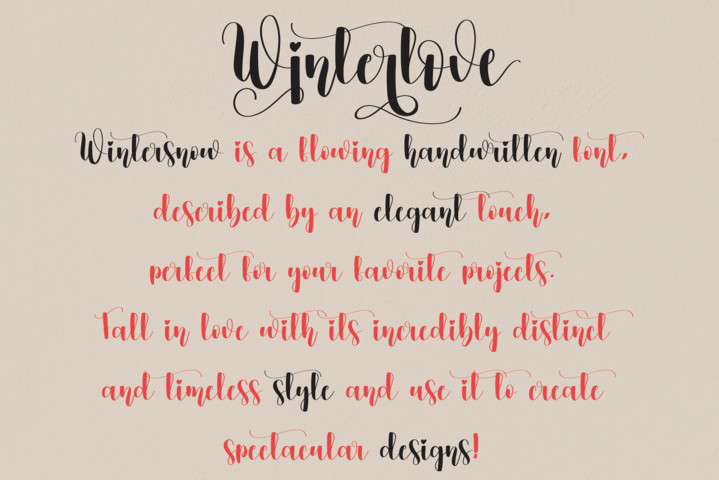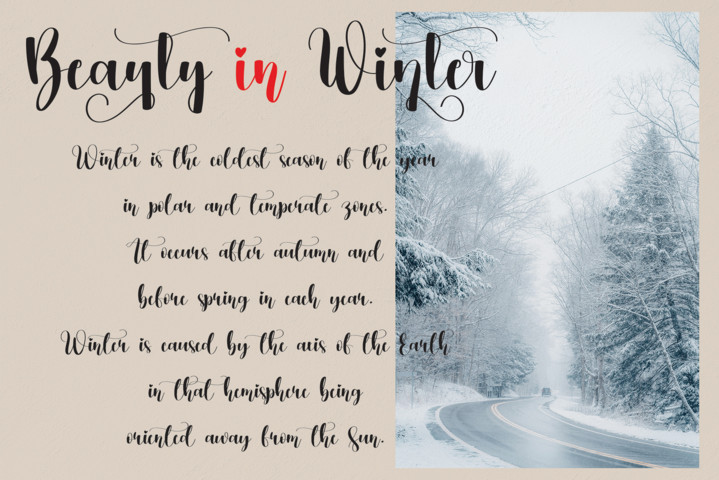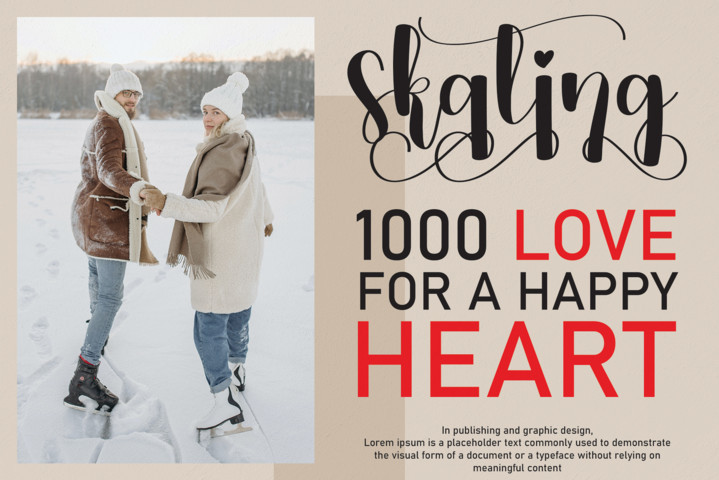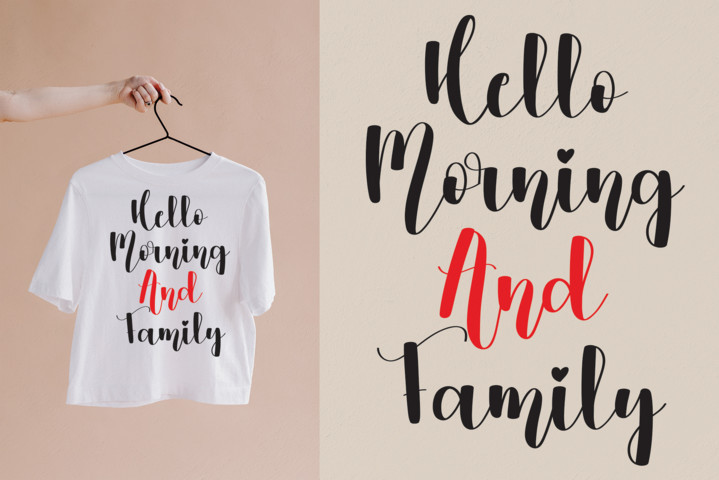
Winterlove Script Font
It’s a romantic and sweet calligraphy typeface with characters that dance along the baseline. It will add a luxury spark to any design project that you wish to create! This font is PUA encoded which means you can access all glyphs and swashes with ease!